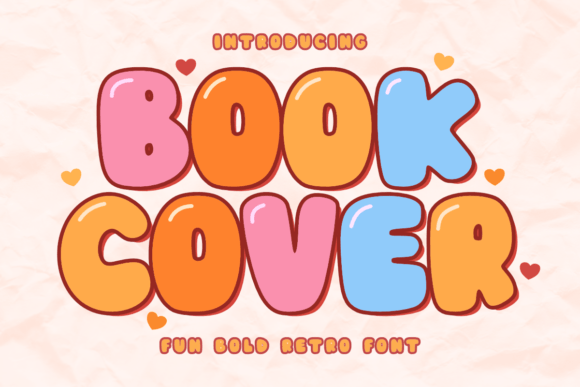
The Ultimate Guide to Book Cover Font: A Fun and Bold Kids Book Cover Display Font
Have you ever been in the middle of designing a kids’ book cover, only to realize that finding the perfect font is like searching for a needle in a haystack? 🤔 I certainly have! As a designer, I’ve spent hours scrolling through font libraries, trying to find that one font that captures the whimsy and playfulness of a children’s book. And then, I stumbled upon Book Cover Font – a bold and fun kids book cover display font that has become my go-to for all things kid-friendly.
A Personal Review: What I Love About Book Cover Font
So, what makes Book Cover Font so special? Here are a few things that I absolutely love:
• ✨ Bold and eye-catching: This font is perfect for grabbing attention and making a statement.
• ✅ Easy to read: Despite its boldness, Book Cover Font is surprisingly easy to read, even at smaller sizes.
• 🎉 Fun and playful: This font has a youthful energy that’s perfect for kids’ book covers, but also works well for other creative projects.
While Book Cover Font is an amazing font, it’s not without its quirks. Here are a few things to keep in mind:
• ⚠️ Limited serif options: Book Cover Font is a sans-serif font, which might not be ideal for every project.
• 🤔 Not suitable for body text: This font is best used for headings and titles, as it can be overwhelming for longer blocks of text.
The Backstory Behind Book Cover Font
Book Cover Font was inspired by the vibrant and playful typography often seen on kids’ book covers. The designer aimed to create a font that captures the whimsy and imagination of childhood, while also being easy to read and versatile enough for various creative projects.
Font Name Book Cover Font
Author SiapGraph
What is Book Cover Font best used for? Book Cover Font is ideal for kids’ book covers, but it’s also suitable for other creative projects like t-shirts, stickers, wall art, and marketing materials.
Is Book Cover Font easy to read? Yes, despite its boldness, Book Cover Font is surprisingly easy to read, even at smaller sizes.
In conclusion, Book Cover Font is a fantastic addition to any designer’s font library. Its bold, playful, and easy-to-read design makes it perfect for kids’ book covers and a wide range of creative projects. With its versatility and OpenType features, you can create stunning designs that capture the imagination of your audience.